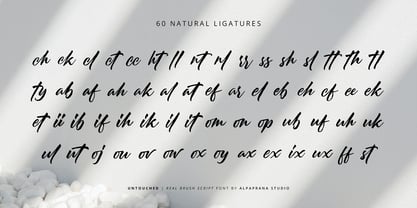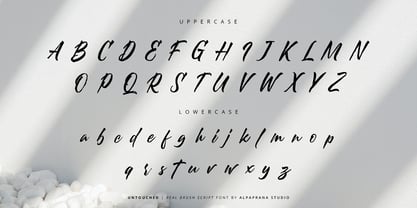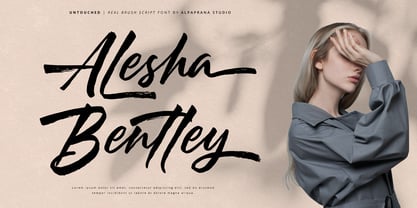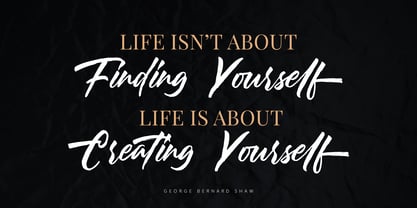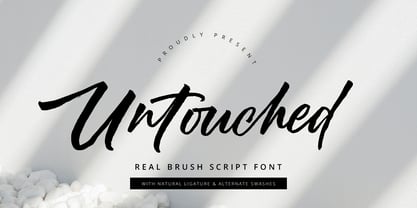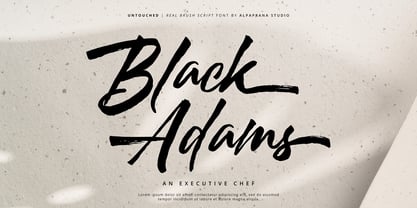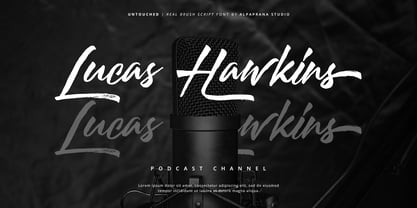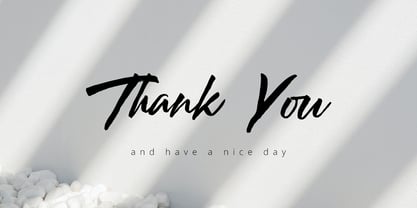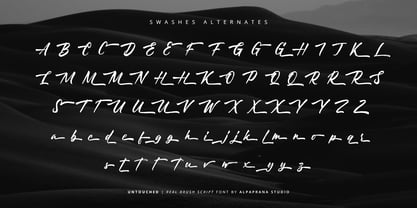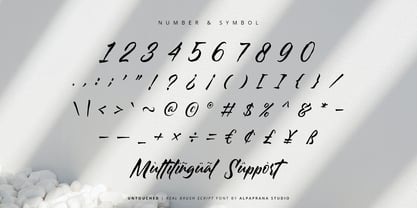
Untouched
The Untouched Font Family was designed by Nadia Salsabila and published by Alpaprana. Untouched contains 1 styles. More about this family
Untouched is a brush script font with natural and modern feels. It will be perfectly used for Branding, Logo Design, Lettering, Logotype, Clothing, Poster, magazine, packaging, posters, shopping bags, t-shirts, book covers, photography, special events and other design project.